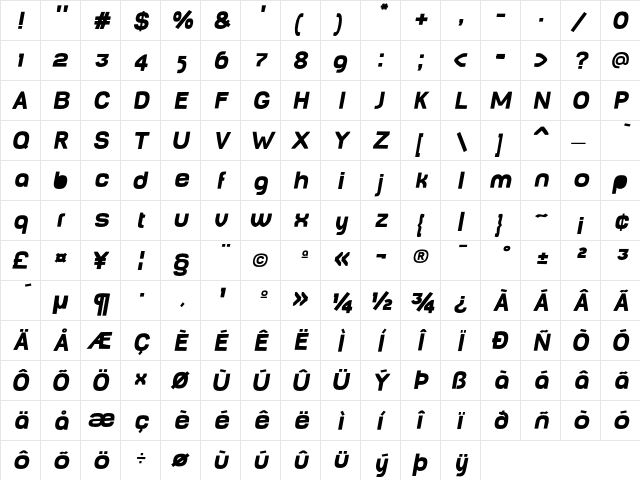
BabyMine FatOblique Font Preview
BabyMine FatOblique
BabyMine FatOblique Font Details
| Style | FatOblique |
Design Context for BabyMine Typeface
BabyMine takes a measured approach to typography — its balanced proportions and neutral character make it a reliable workhorse for both digital and print work. The slanted form adds forward momentum and visual energy.
Pro Tip: Try BabyMine for annotation and caption copy alongside an upright companion — the contrast in angle creates a dynamic but ordered typographic system.